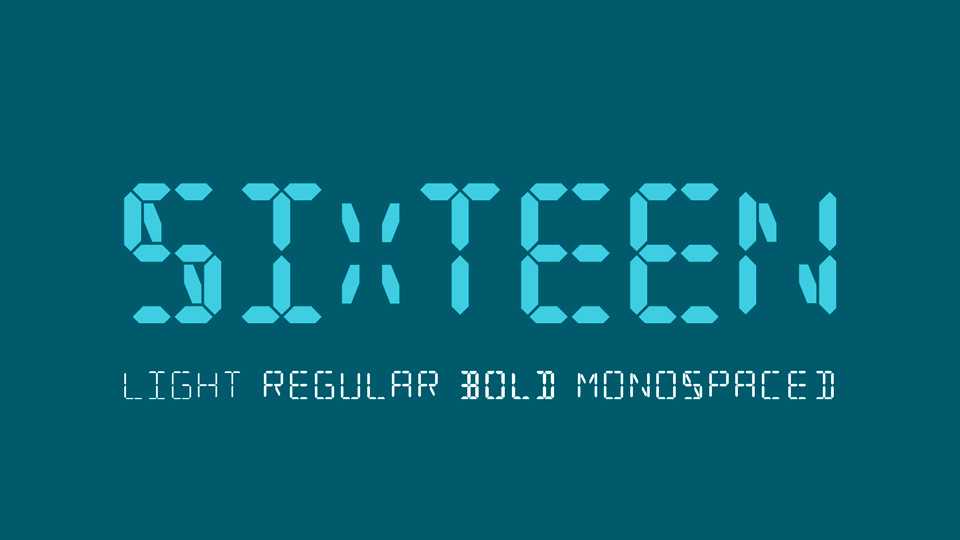
Download Sixteen typeface, a display font family in three weights, including monospaced styles and variable, which imitates 16-segment LCD Displays.
Designer: Jack Sivak